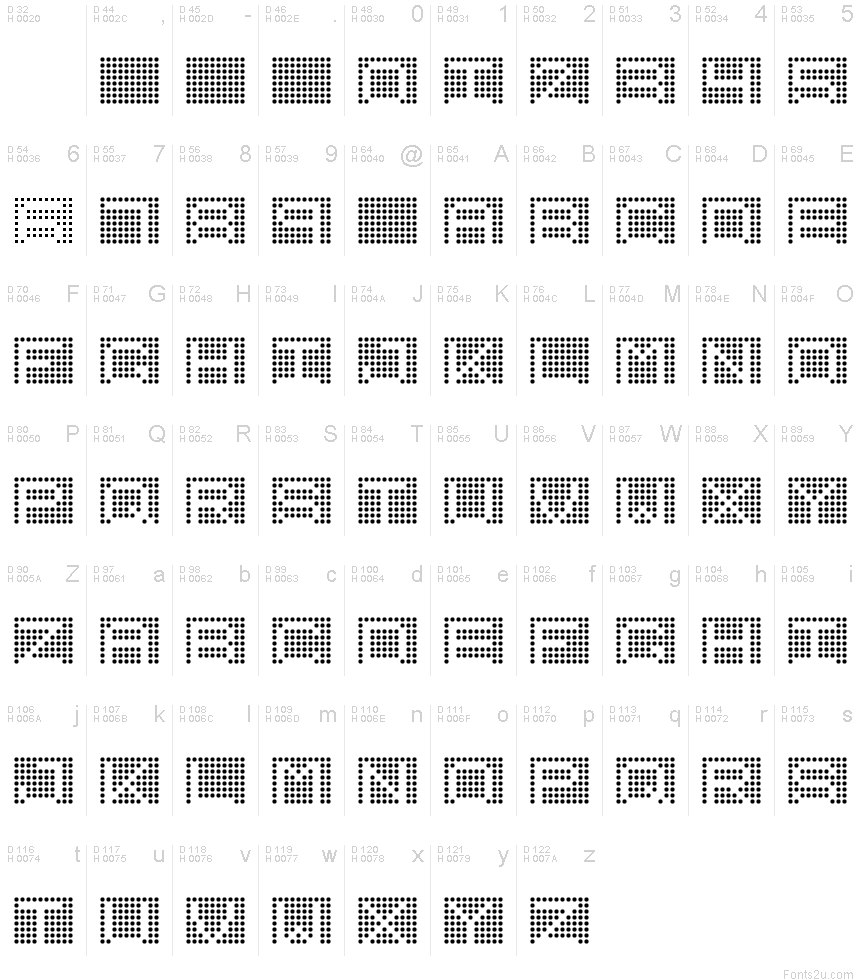
7inch Rounded
7inch Rounded font by 7inch is a free digital dot-matrix display typeface that captures the glow of old LED scoreboards and station boards. Each letter is built from tightly packed, perfectly round dots that read like a grid of tiny lights, giving words a rhythmic, mechanical pulse. Despite its rigid structure, the soft circles keep it approachable and playful, so it feels techy without getting cold or sterile.
Using 7inch Rounded, headlines instantly snap into that retro-electronic mood—great for event posters, DJ or club visuals, sports score graphics, sci‑fi titles, game overlays, and social media promos. This free font works best at larger sizes where the dotted texture can really breathe. For supporting text, pair it with a simple geometric sans serif to keep everything clean and readable while the dots take center stage.